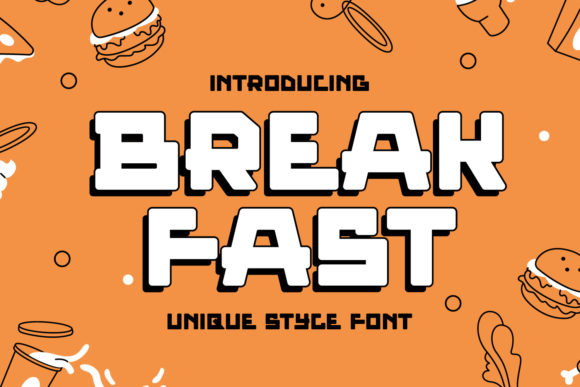
The Ultimate Display Font: Break Fast
As a designer, I’ve had my fair share of font struggles. I recall working on a project where I needed a bold, futuristic font to give it an edgy vibe. After hours of scouring the internet, I stumbled upon Break Fast – a cool, bold, and thick lettered display font that instantly caught my attention. In this article, I’ll share my experience with Break Fast, its features, and how to make the most of it in various design platforms.
Break Fast: The First Impression
Break Fast is a stunning display font designed to add a futuristic touch to your designs. Its bold and thick letters make it perfect for headlines, titles, and any other design element that requires a strong visual impact. Whether you’re working on a web design, business card, or social media graphic, Break Fast is an excellent choice.
Honest Review: What I Love and What I Don’t
The Good ✨
- ✅ Unique and bold design: Break Fast’s futuristic style sets it apart from other fonts.
- ✅ Highly legible: Despite its boldness, the font remains easy to read, even in smaller sizes.
- ✅ Versatile: Break Fast can be used in various design projects, from digital to print.
The Not-So-Good 🤔
- ⚠️ Limited use in body text: Due to its boldness, Break Fast might not be the best choice for lengthy body text.
- ⚠️ No built-in italics: If you need italic variations, you might need to rely on alternative fonts or creative workarounds.
The Designer Inspiration Behind Break Fast
Break Fast was designed with the goal of creating a bold and futuristic font that would stand out in digital designs. The designer’s inspiration came from sci-fi movies, futuristic architecture, and cutting-edge technology. The result is a font that’s both modern and attention-grabbing.
| Font Name | Break Fast Font |
| Author | OKEVECTOR |
Q: What type of designs is Break Fast best suited for?
A: Break Fast is ideal for designs that require a bold and futuristic touch, such as web designs, business cards, and social media graphics.
Q: Can I use Break Fast for body text?
A: While Break Fast is highly legible, its boldness might make it less suitable for lengthy body text. Consider using a complementary font for body text.
Q: Does Break Fast support OpenType features?
A: Yes, Break Fast supports OpenType features, which allow you to access additional glyphs and stylistic alternates.